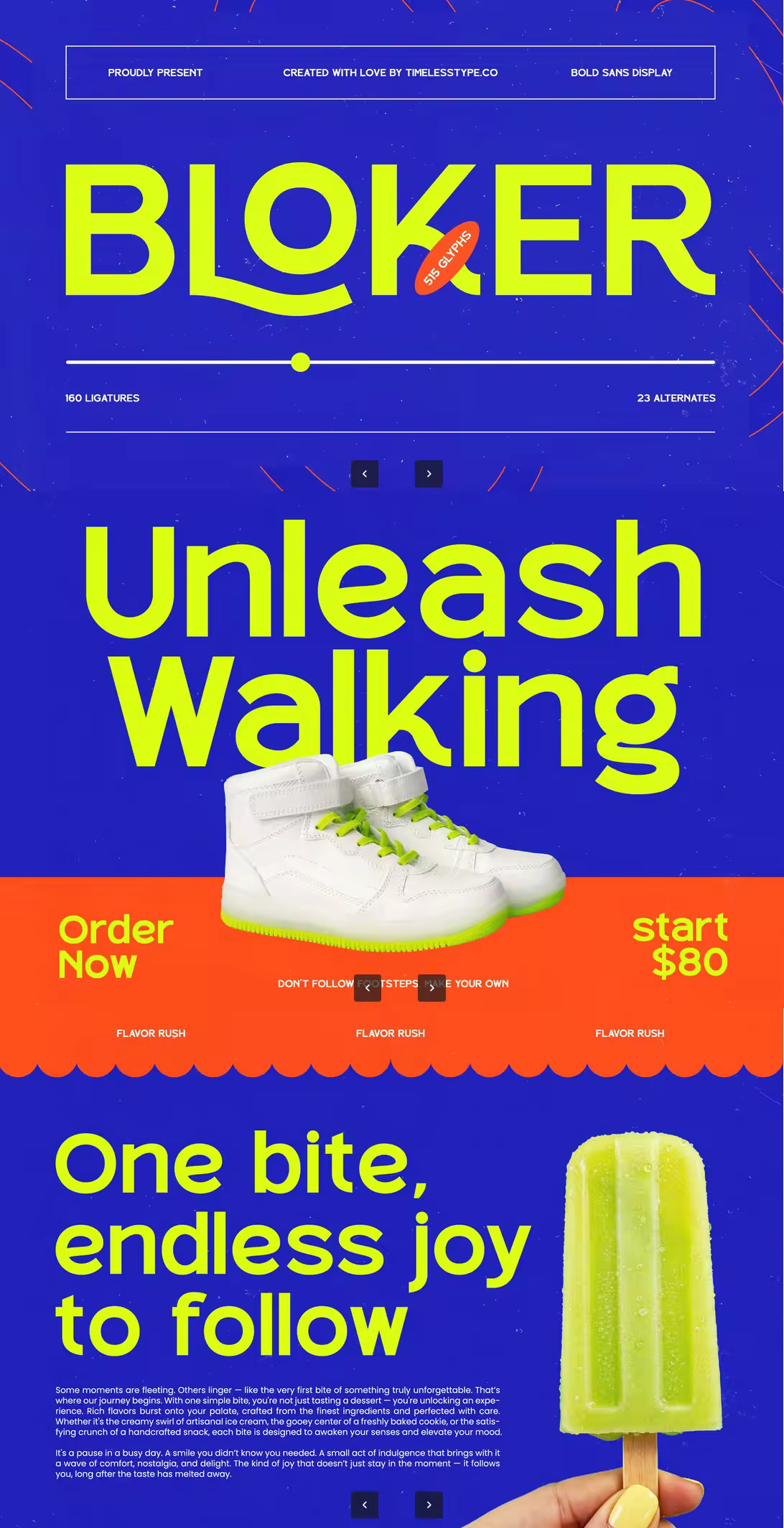
Bloker is a bold sans display font designed for maximum impact. With sharp geometry, strong letter presence, and a unique wave-inspired curve on selected characters, Bloker brings modern energy to headlines, posters, branding, esports visuals, and bold digital content.
Packed with 160 ligatures and 23 alternates, the font offers versatile creative freedom—allowing you to shape expressive logotypes and standout titles. Its clean construction and vibrant personality make it ideal for contemporary design work that demands confidence and clarity.